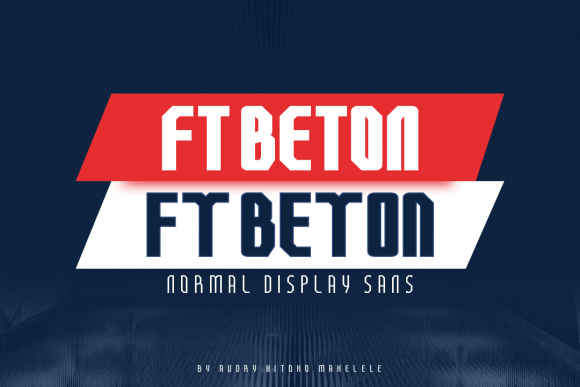
Introducing FT Beton, the display font that will catapult your creative projects into the stratosphere! Designed with meticulous precision by the visionary audrykitoko, FT Beton is your gateway to a world of captivating logos and awe-inspiring designs.
Unleash your inner artist and let FT Beton's bold, geometric forms dance across your screens. Each letter, meticulously crafted with sharp edges and clean lines, exudes a sense of strength and modernity. This font is not just a collection of characters; it's a symphony of style, waiting to harmonize with your creative vision.
Picture your logo, emblazoned with the FT Beton typeface, standing tall and proud, demanding attention in a sea of mediocrity. Envision your posters and flyers, adorned with this striking font, capturing hearts and minds with their undeniable charm. Let FT Beton elevate your branding to new heights, making your business the talk of the town.
In the realm of digital design, FT Beton shines like a beacon of creativity. Its crisp, pixel-perfect rendering ensures that your website and social media posts leave a lasting impression. Engage your audience with captivating headlines and eye-catching graphics, all brought to life by the sheer brilliance of FT Beton.
But FT Beton's talents extend far beyond the digital realm. Imagine the possibilities when you pair it with your print projects. Brochures, business cards, and packaging adorned with this font will command attention, leaving a lasting impression on your clients and customers. Let FT Beton transform your ideas into tangible works of art, elevating your brand to new levels of sophistication.
With FT Beton by your side, you're not just creating designs; you're crafting masterpieces. Open the door to a world of limitless possibilities and let your creativity soar. FT Beton is your passport to design excellence, ready to take you on an unforgettable journey.